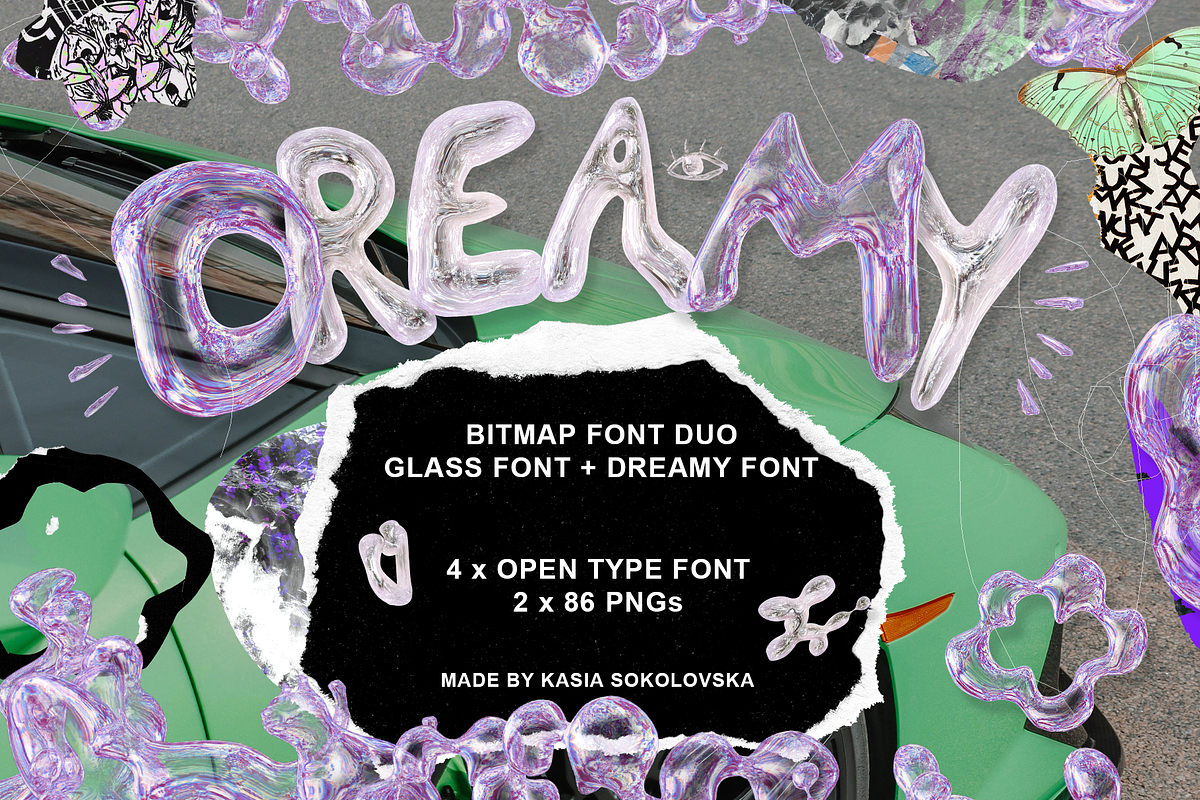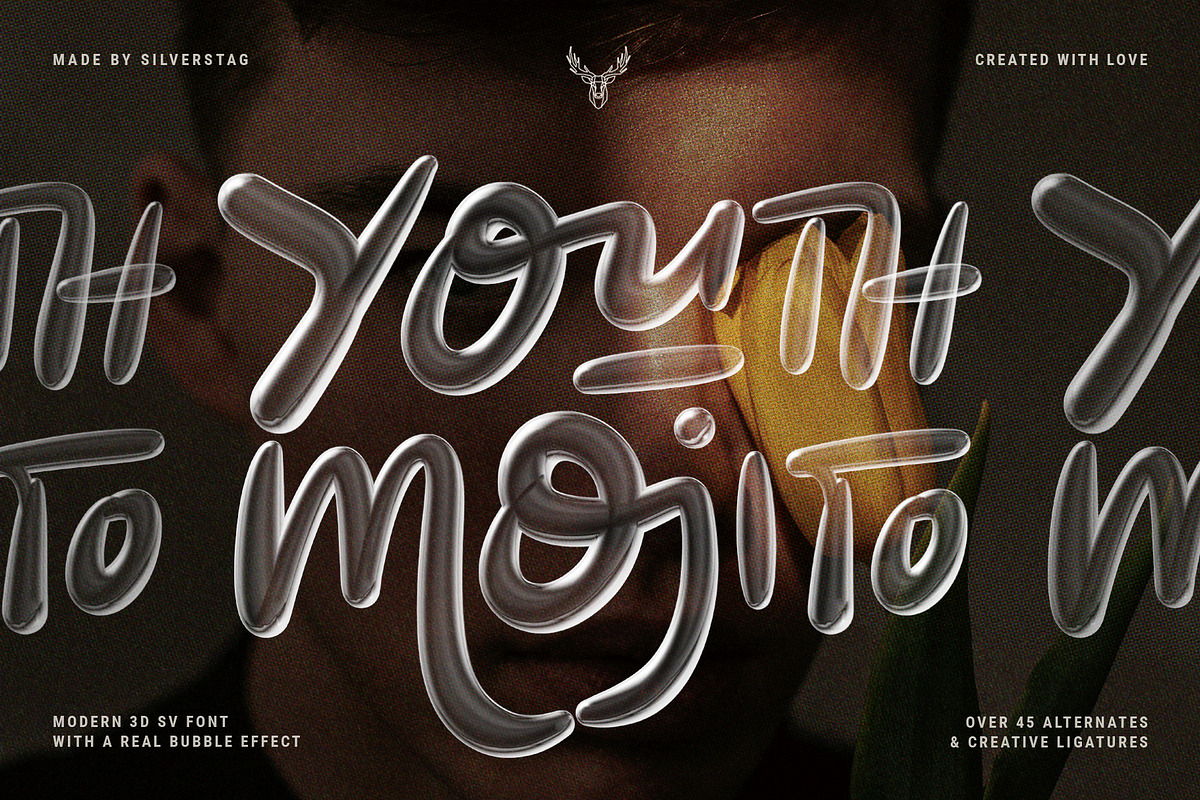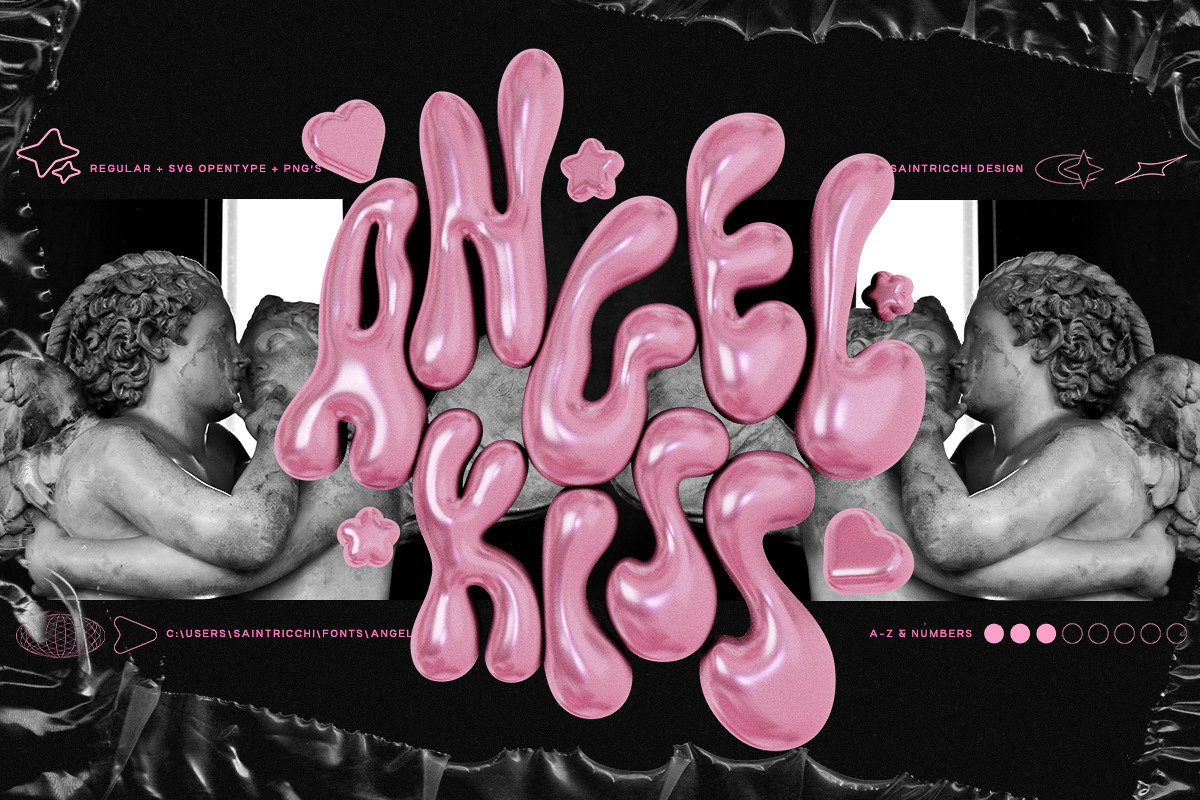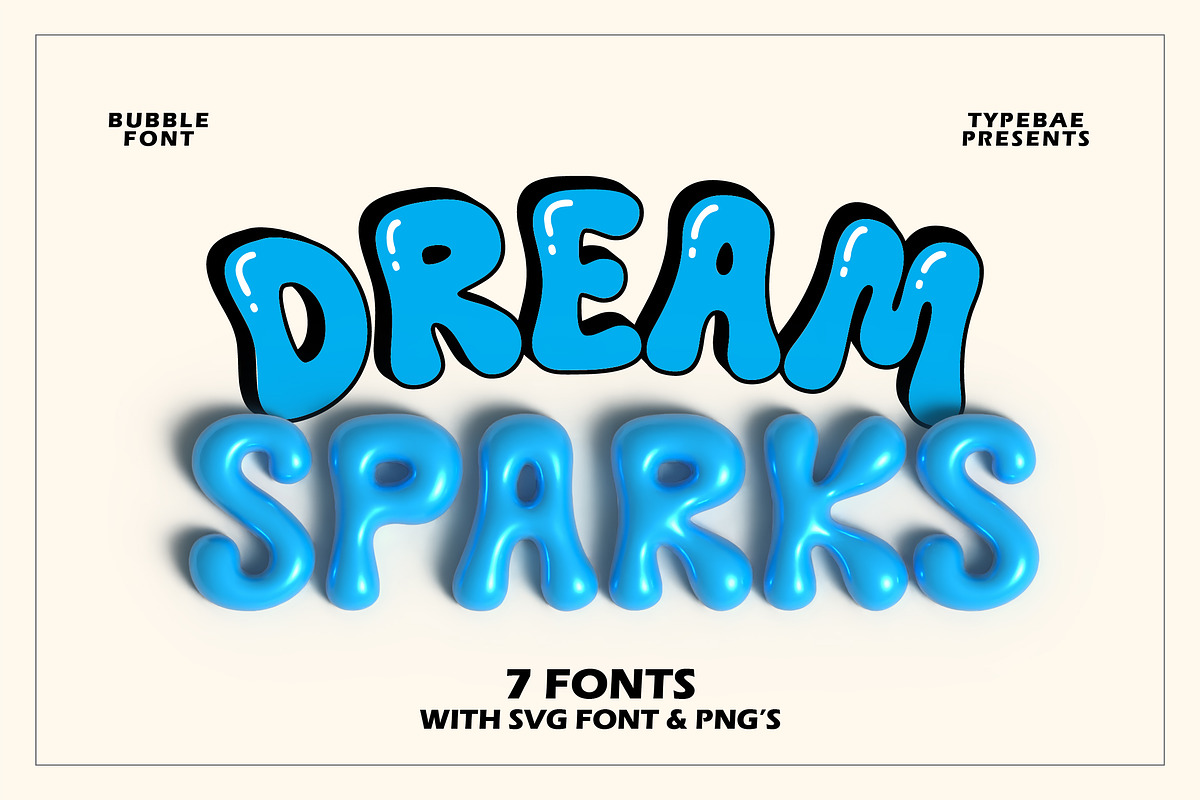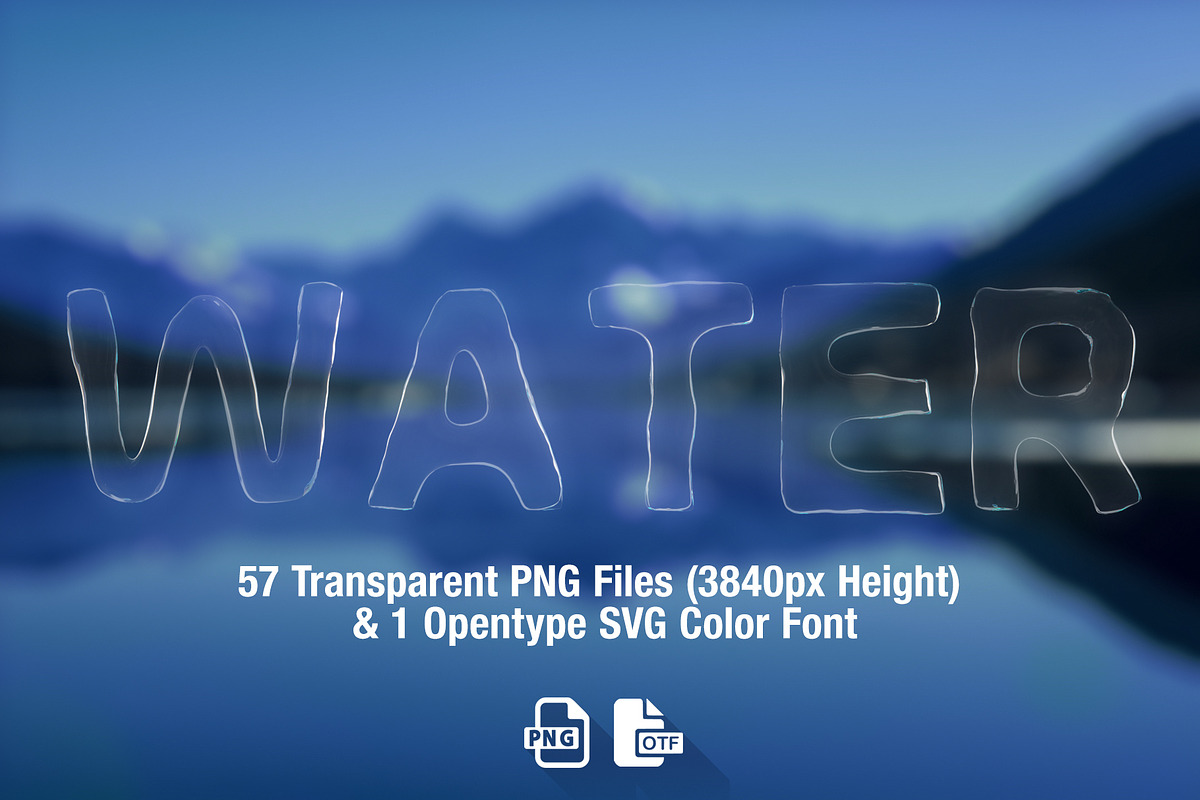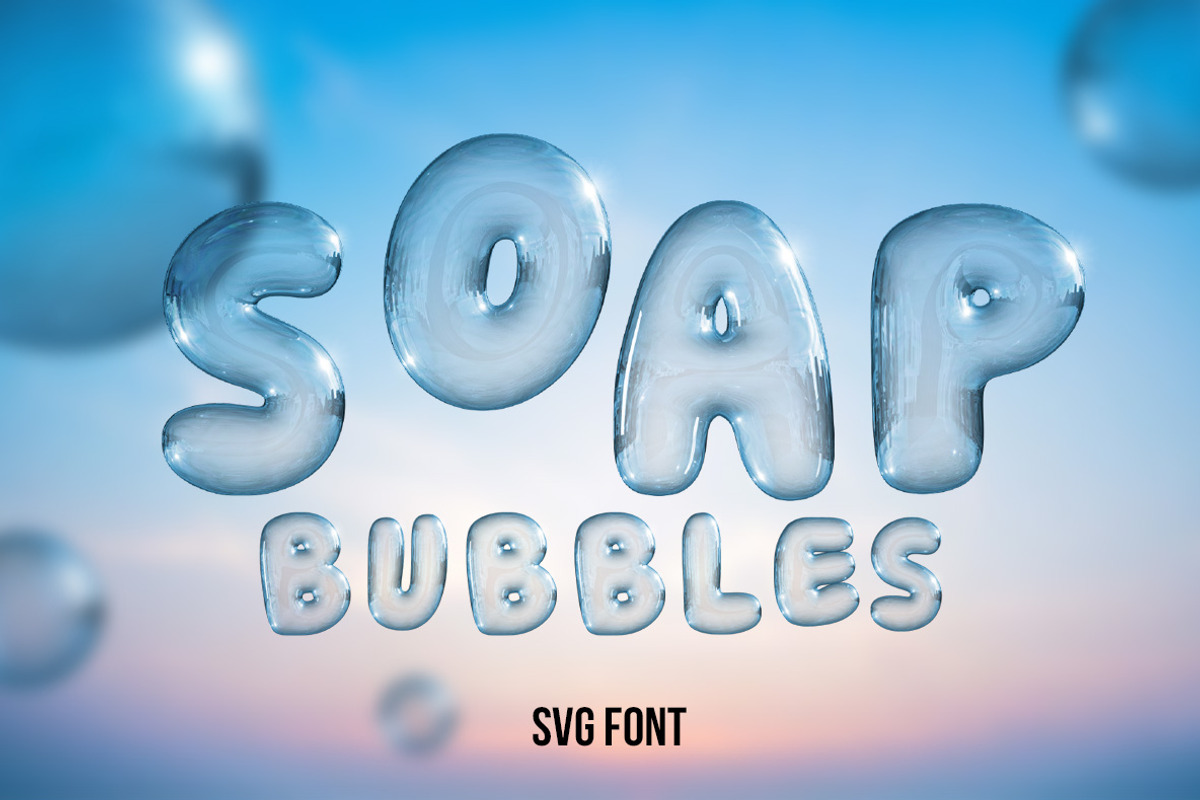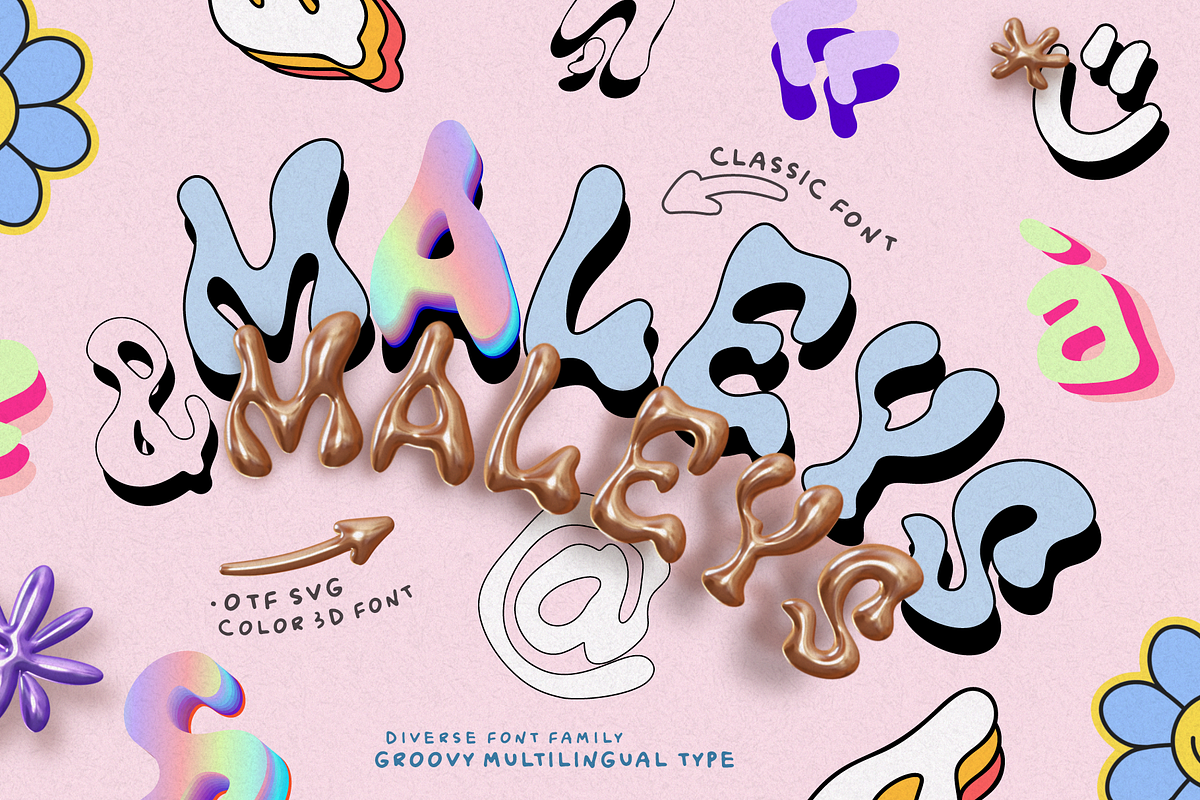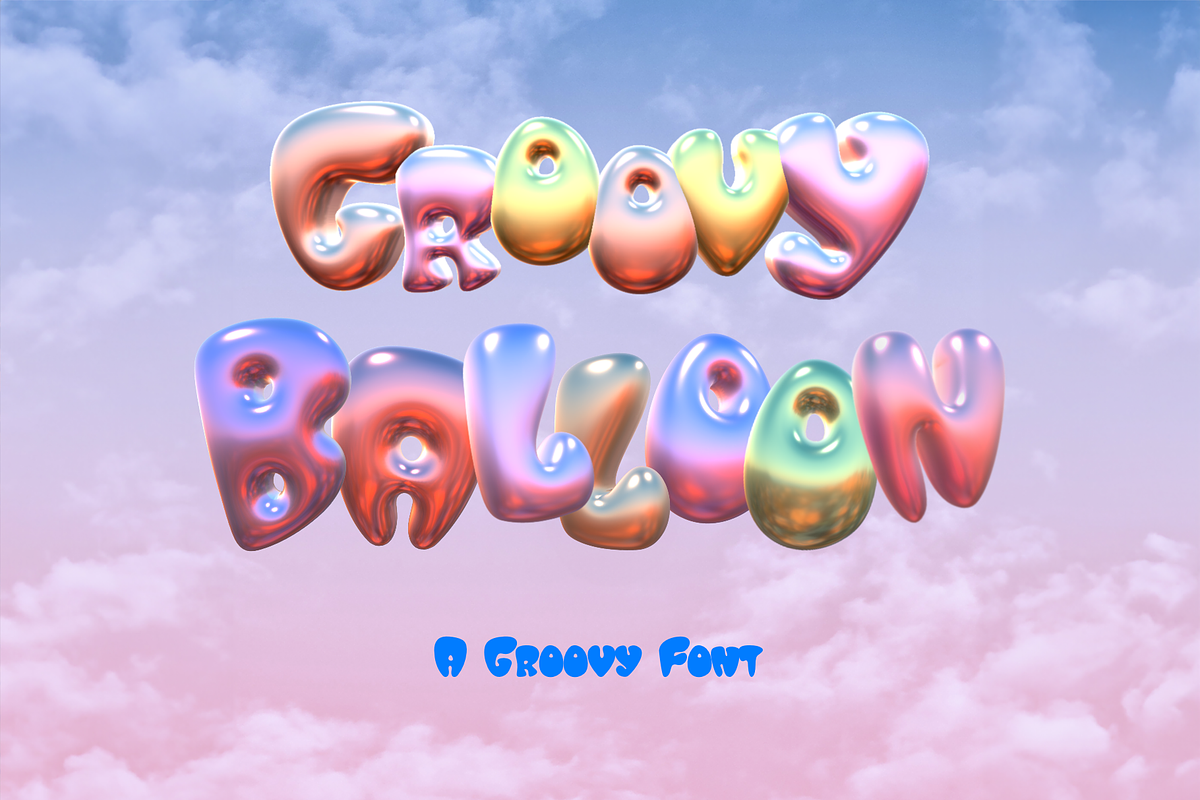
Let’s talk fonts, specifically the irresistibly cute ones that bring a whimsical touch to any creative project – bubble fonts. Their rounded edges and playful demeanor make them a go-to choice for everything from birthday cards to playful posters.
But, take a step further into the world of versatility with bubble SVG fonts, and you’ll discover a whole new level of creative freedom. Unlike regular bubble fonts, the SVG color versions take customization to the next level. Imagine text that isn’t just outlined but filled with a spectrum of colors, gradients, and textures.
These fonts bring vibrancy and depth to your designs, adding a dynamic element that goes beyond the typical flat appearance. The beauty lies in their adaptability; you can resize them without losing quality, making them perfect for a range of projects, from digital artwork to social media graphics.
So, if you’re on the lookout for fonts that marry cuteness with versatility, bubble SVG color fonts are the answer. Dive into this vibrant world, and watch your designs come to life with a spectrum of playful possibilities!
Now if you haven’t heard of these fonts, sometimes called “Color”, “SVG”, or “Bitmap” fonts, don’t worry! Just check out this quick intro, and you’ll be well on your way to using some of the coolest fonts out there!
Bubble SVG Fonts